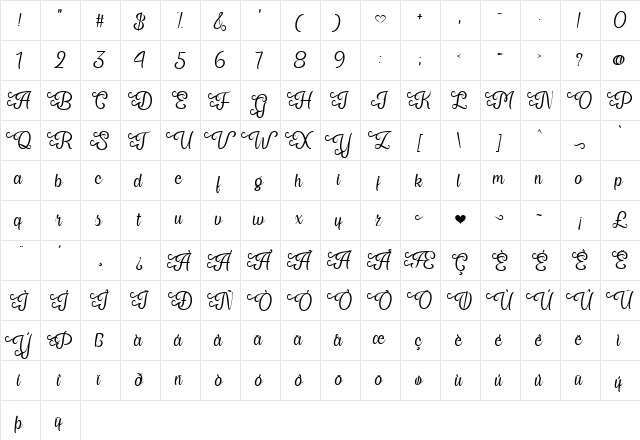
My Last Breath Regular
Design Context for My Last Breath Typeface
My Last Breath is a composed and adaptable typeface that performs quietly and consistently across a wide range of design contexts.